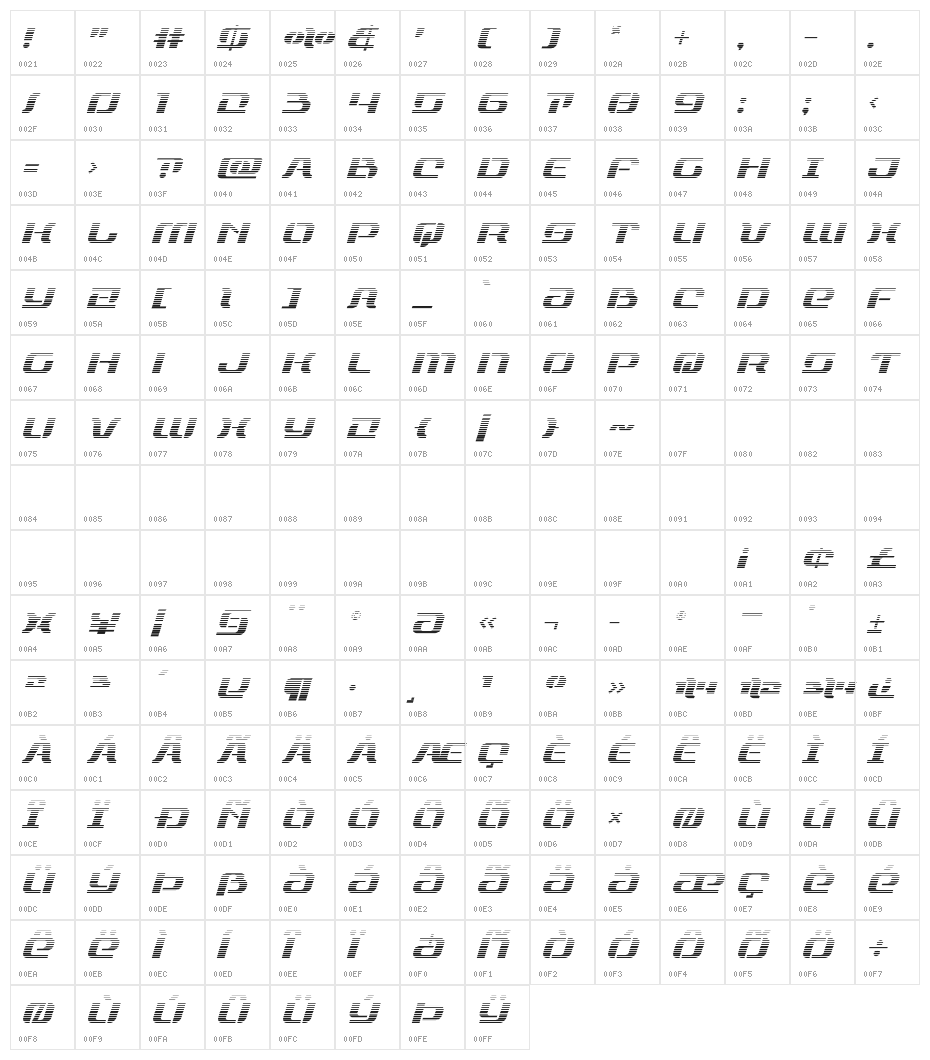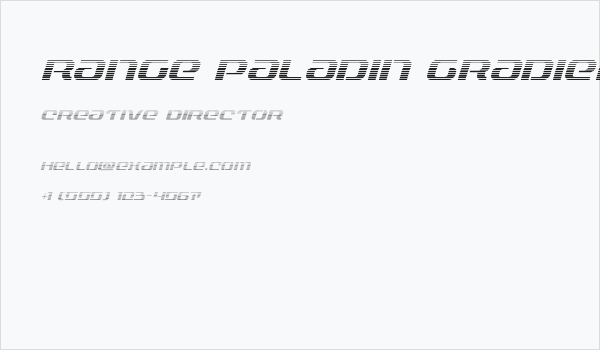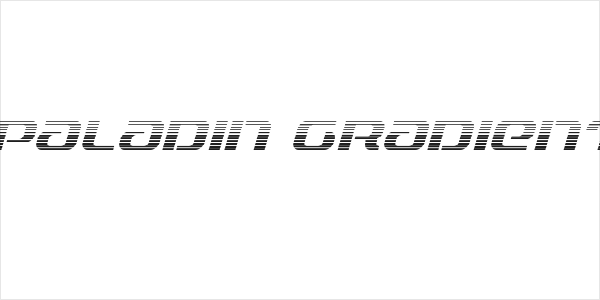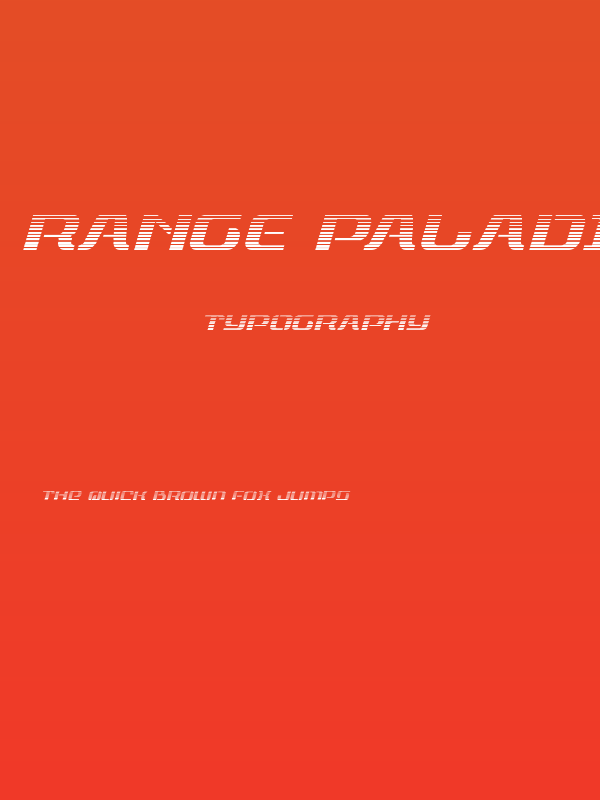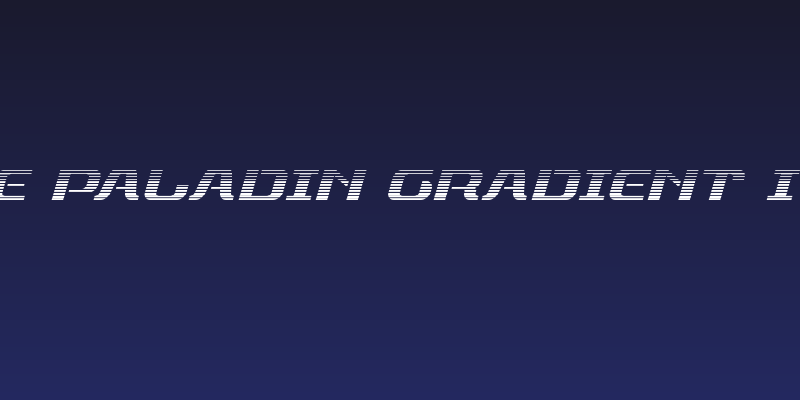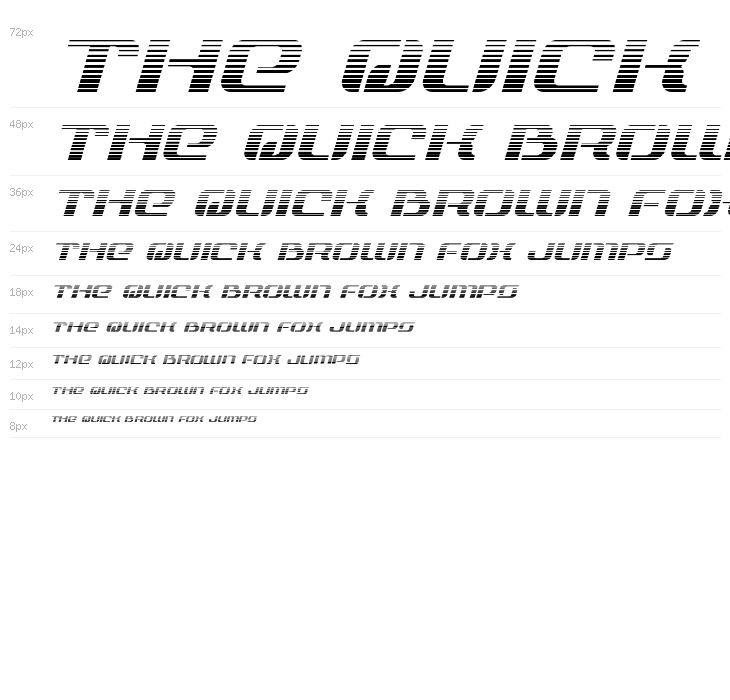
Range Paladin Gradient Italic Font
Range Paladin Gradient Italic Description
This font features a dynamic, futuristic design with a distinct gradient effect created by horizontal lines that form each character. The italicized style adds a sense of motion and speed, making it ideal for projects that require a modern and energetic look. The uppercase and lowercase letters maintain a consistent slant, enhancing the cohesive appearance. The numerals and special characters are crafted with the same attention to detail, ensuring uniformity across all elements. The font's unique style is both eye-catching and versatile, suitable for a variety of creative applications.
| Proposed Projects | Ideal for tech branding, sci-fi posters, video game titles, and dynamic advertising. |